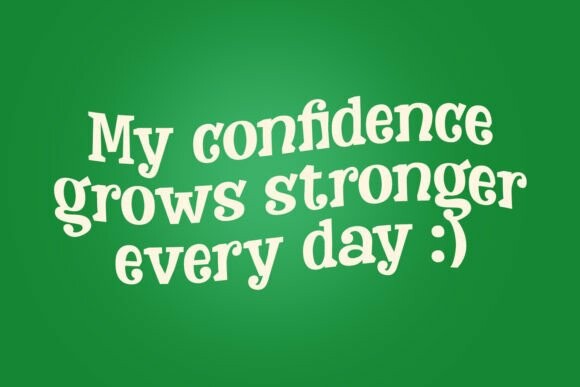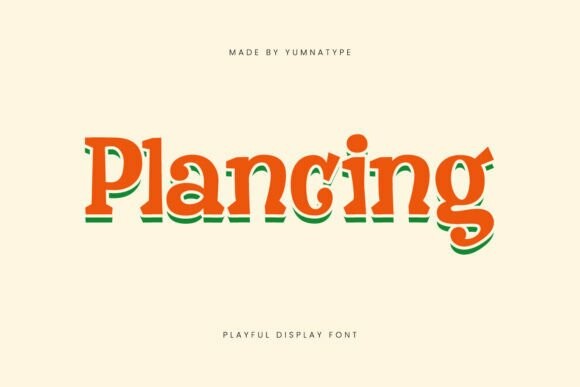
Plancing Font
Designer: Yumna_Type
Plancing Font is a captivating display font that embodies a playful style, designed to add a touch of whimsy to your projects. The font design shapes tend to be rounded, giving it a friendly and approachable feel, while some rather sharp corners add an unexpected twist, injecting a bit of edge and uniqueness into the design.